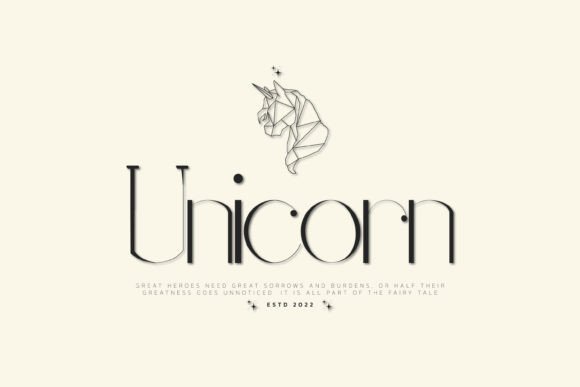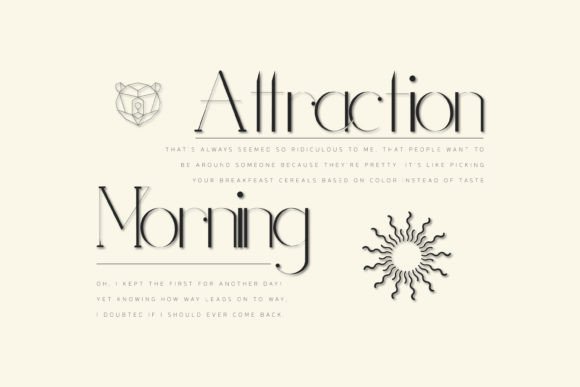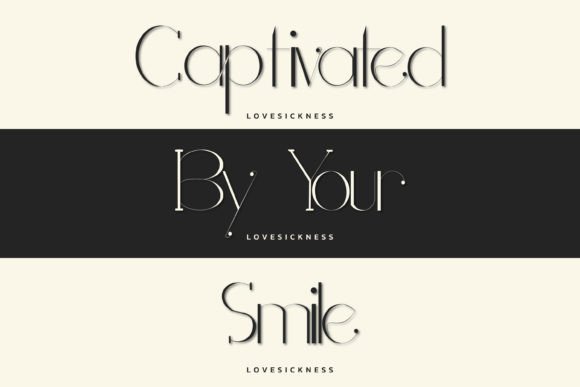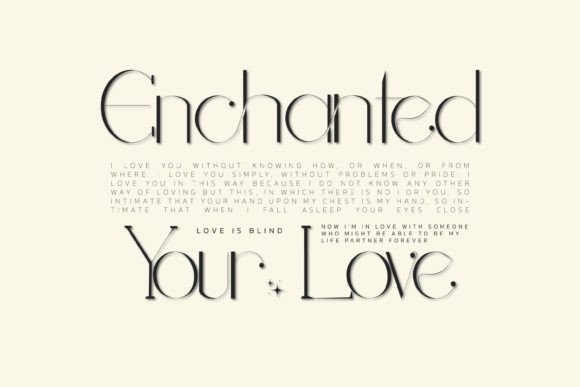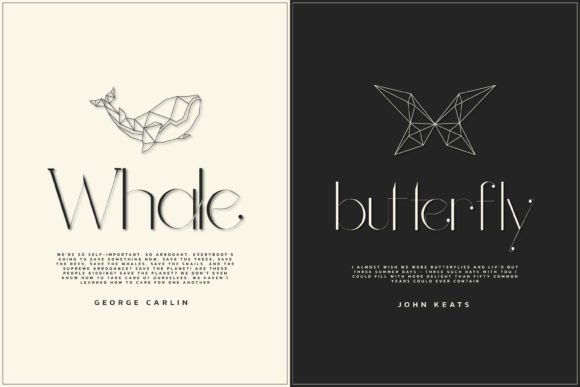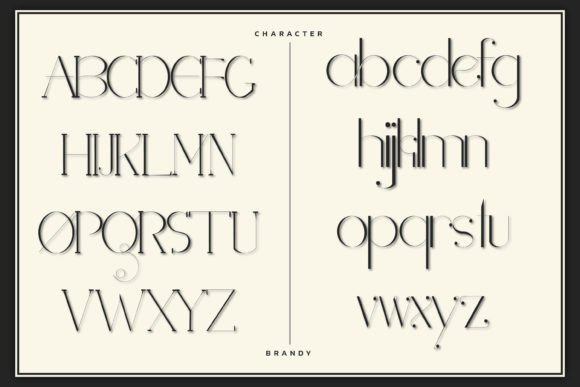
The Elegance of Brandy Font: A Designer’s Delight
I’ll never forget the time I was working on a project for a high-end fashion brand. I had to create a logo that exuded sophistication and elegance, but I was struggling to find the right font. That’s when I stumbled upon Brandy Font, and it instantly became my go-to choice. Its delicate and elegant characters were perfect for creating a chic, feminine design that my client loved.
An Honest Review of Brandy Font
- ✨ Elegant and sophisticated design that’s perfect for high-end projects
- ✅ Delicate characters that add a touch of femininity to any design
- 💫 Perfect for creating logos, branding materials, and social media graphics
- 🎨 Highly versatile and can be used for a variety of design projects
While Brandy Font is an amazing choice for many design projects, there are a few things to keep in mind 🤔:
- ⚠️ It may not be the best choice for body text or long-form content, as it’s a display font meant for headlines and titles
- ⚠️ Some characters may not be suitable for use in smaller sizes, so be sure to test it out before finalizing your design
- Experiment with OpenType features, such as ligatures and stylistic alternates, to add more personality to your design
The Backstory of Brandy Font
Brandy Font was designed by a team of typographers who wanted to create a font that exuded elegance and sophistication. Inspired by classic calligraphy and refined typography, Brandy Font is the perfect choice for designers who want to add a touch of luxury to their projects.
| Font Name | Brandy Font |
| Author | inferno.type3 |
Q: What is Brandy Font?
A: Brandy Font is a sophisticated and charming display font that’s perfect for creating chic, feminine designs.
Q: What can I use Brandy Font for?
A: Brandy Font is perfect for creating logos, branding materials, social media graphics, and more.